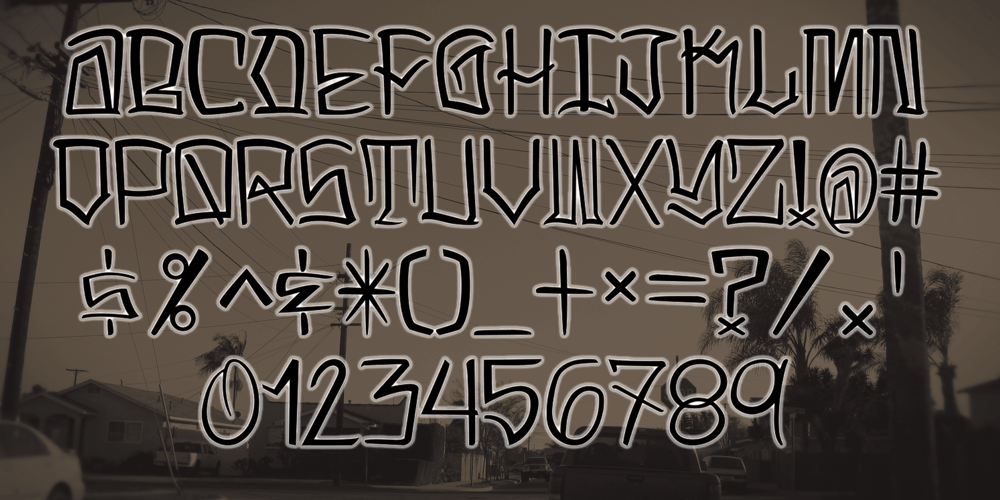
LA Gang Font Set01 Font Family was designed by David Ing and published by Rawtoons. LA Gang Font Set01 contains 1 styles and family package options. This unique font is influenced by the graffiti writing on the walls of Los Angeles. Raw and Uncut. This font can be used on web pages, banners, hats, shirts, advertising. Perfect for all streetwear brands, music groups, and whoever else looking for that raw Los Angeles street style.